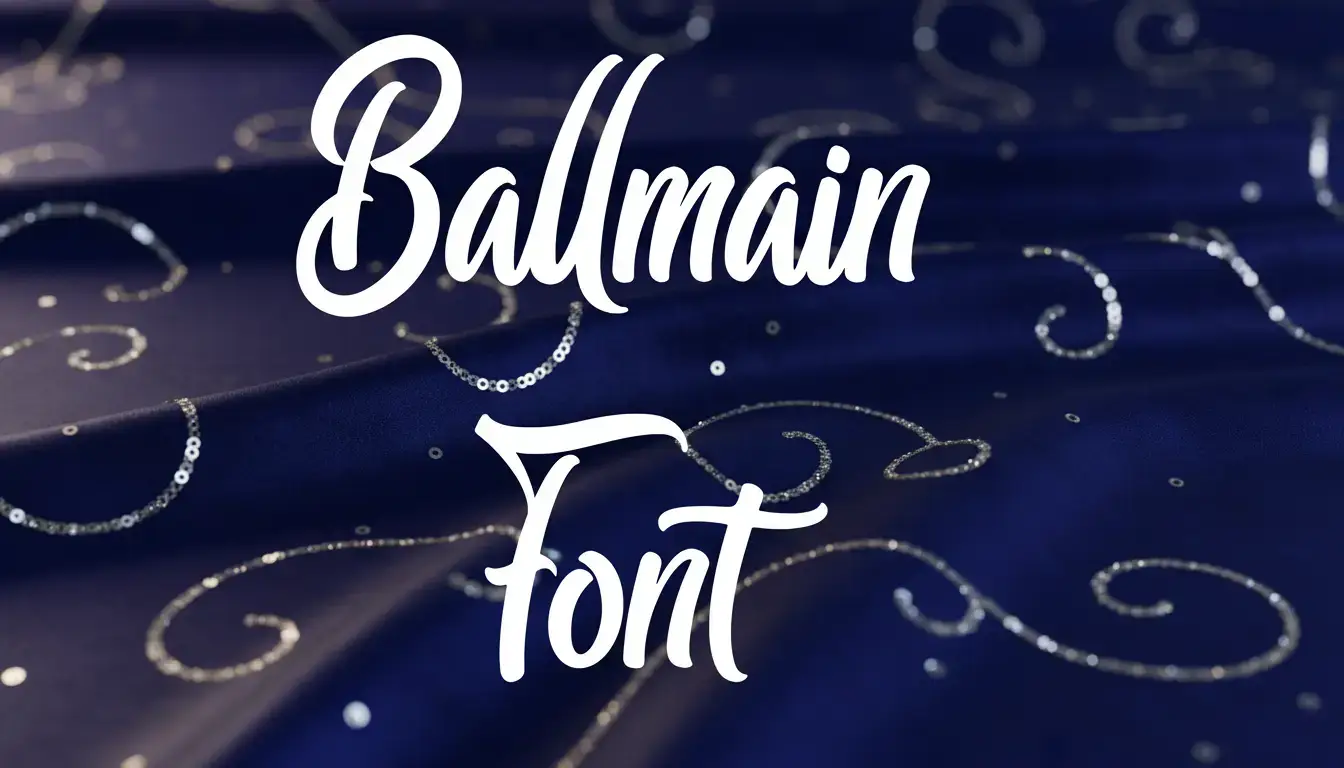
Ballmain Font
Ballmain is a script font designed by Aveni Yuanita. The letters have the smooth movement of real pen lettering, which is why even a single name looks special in it. You can download it for free and test it with your own words in the preview above.
What You Can Type With Ballmain
Ballmain covers the full alphabet in upper and lowercase, plus all ten numbers, so you can set names, dates and prices without switching fonts. Everyday marks like &, !, ? and @ are there too. Thanks to its accented letters, it also works for Spanish, French, Portuguese and Italian, not just English.
Where Ballmain Works Best
Designers usually reach for fonts like Ballmain when they're making wedding invitations, logos and signature-style headings. Script fonts read best in short bursts, so keep it to names, titles and one-line quotes. Skip all caps: script capitals are drawn to start a word, not to fill one.
Does Ballmain support accented letters?
Yes. Ballmain includes the accented letters needed for Spanish, French, Portuguese and Italian, so it works for more than just English.